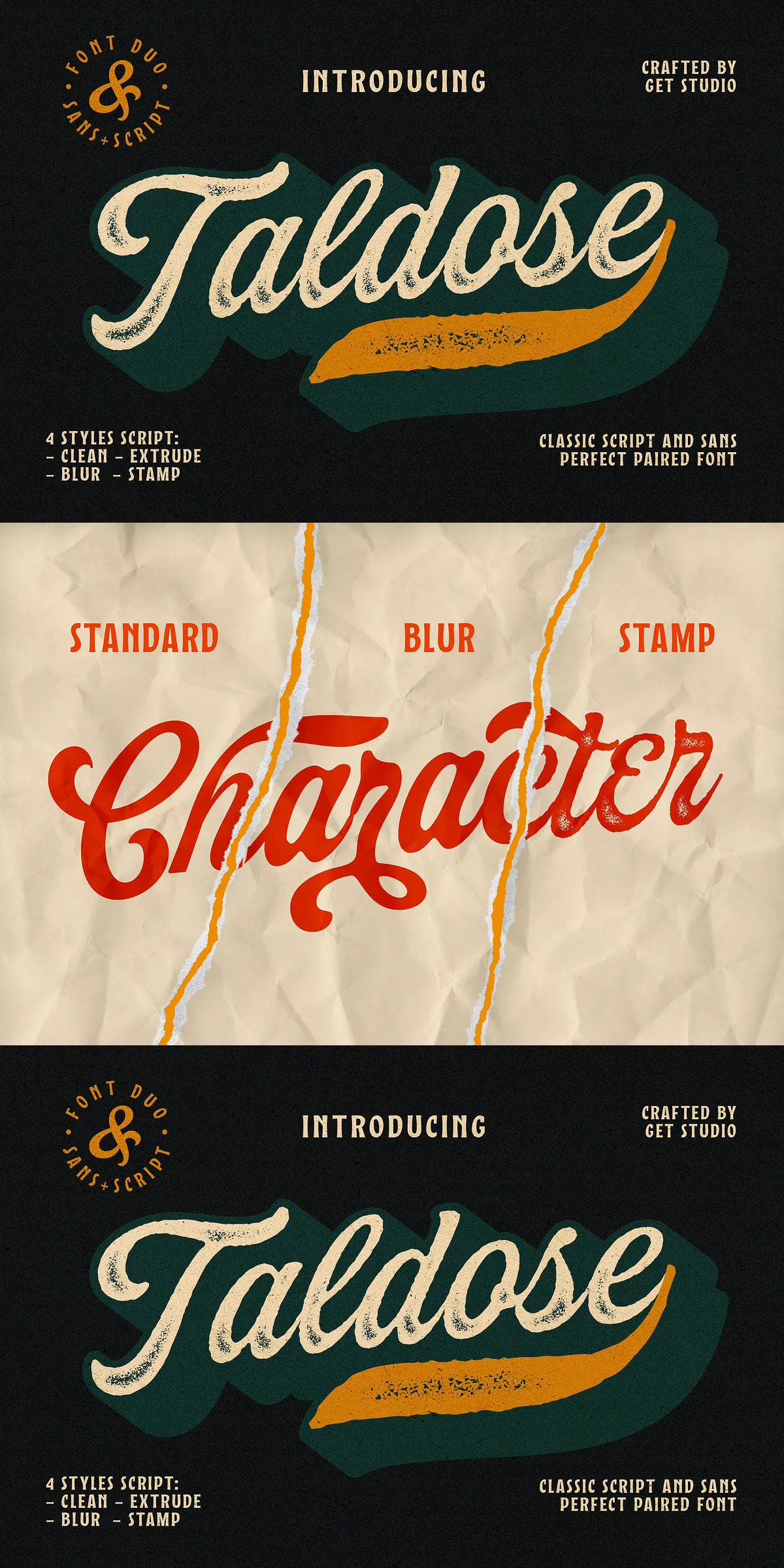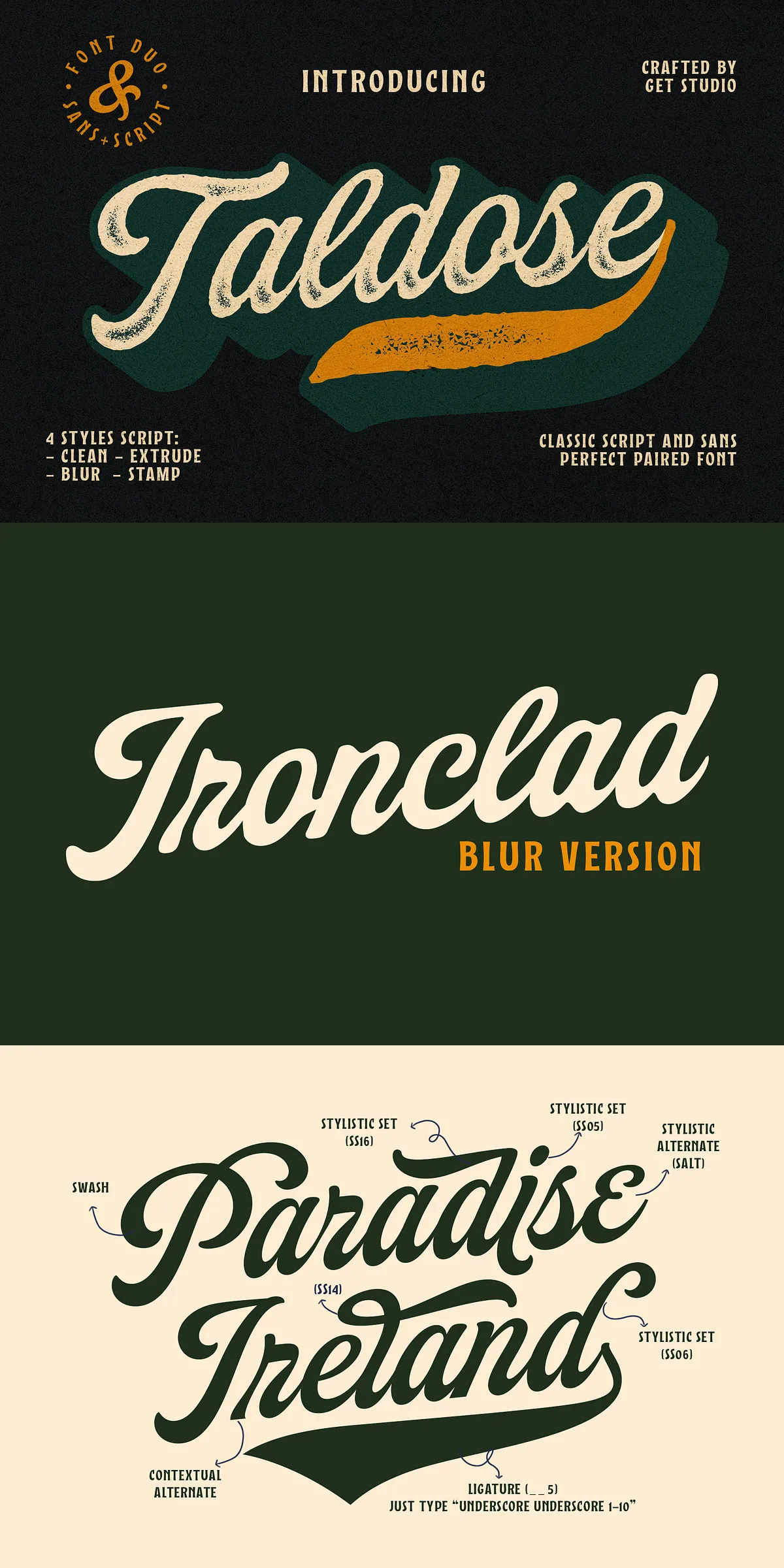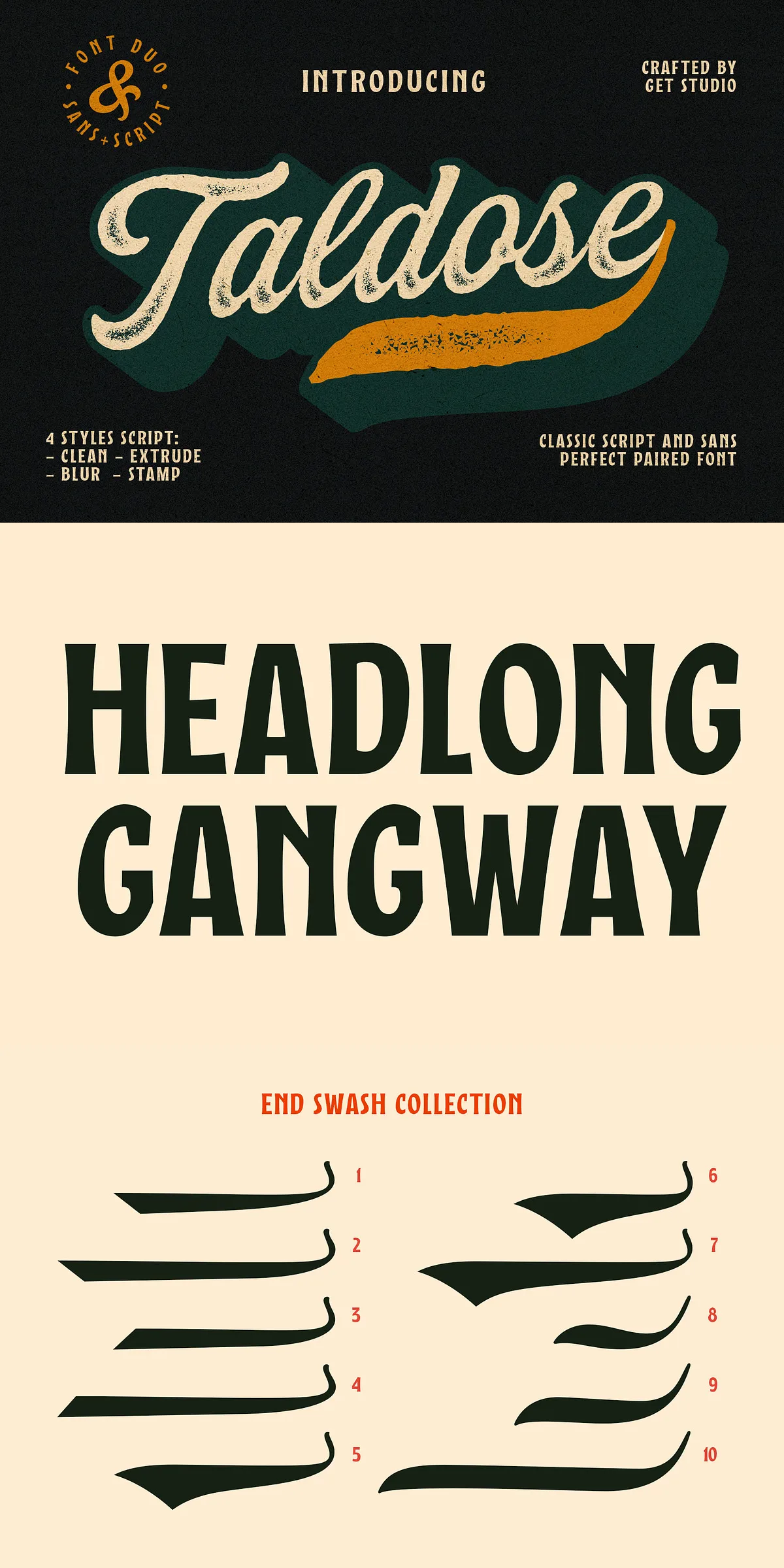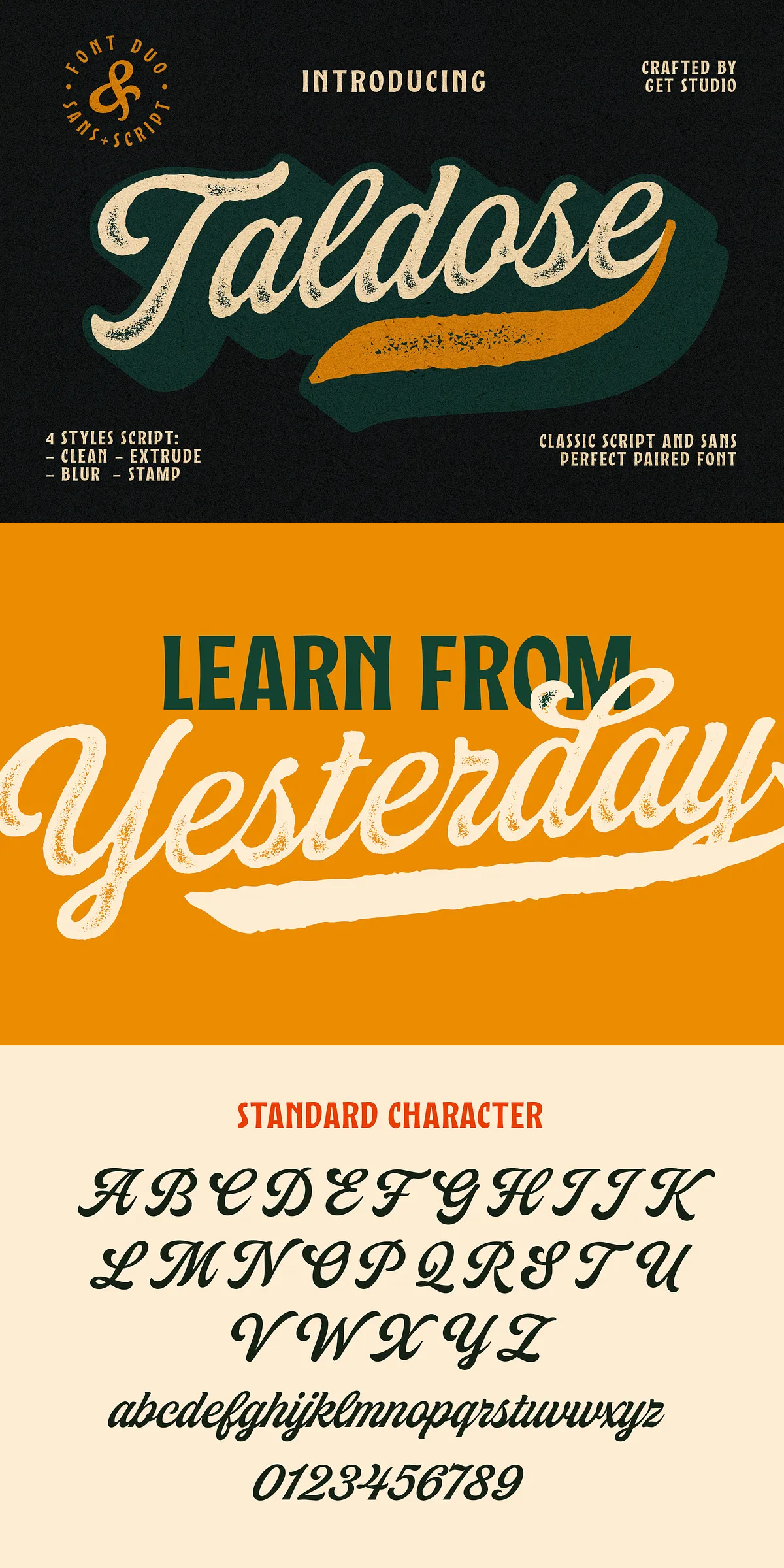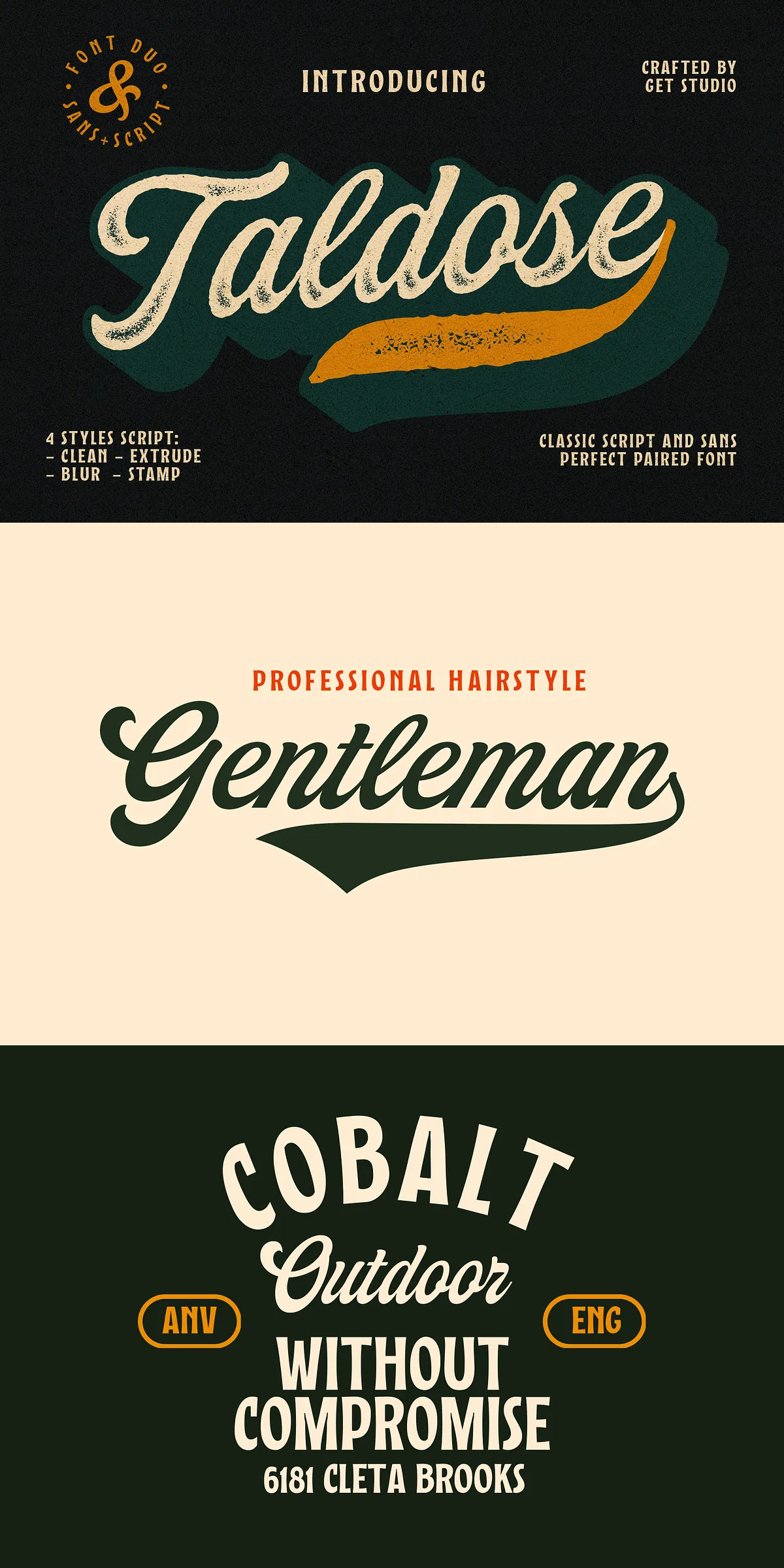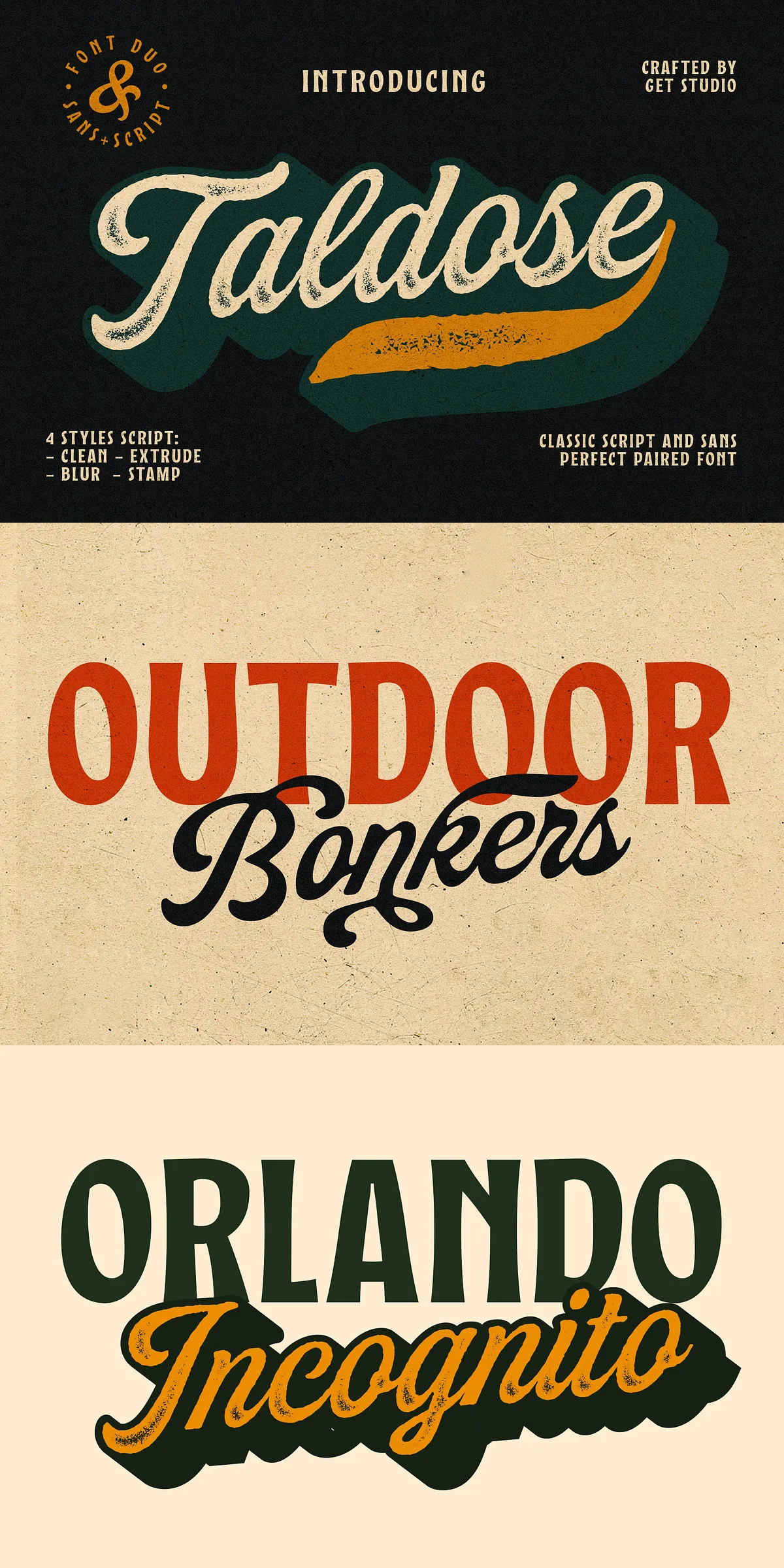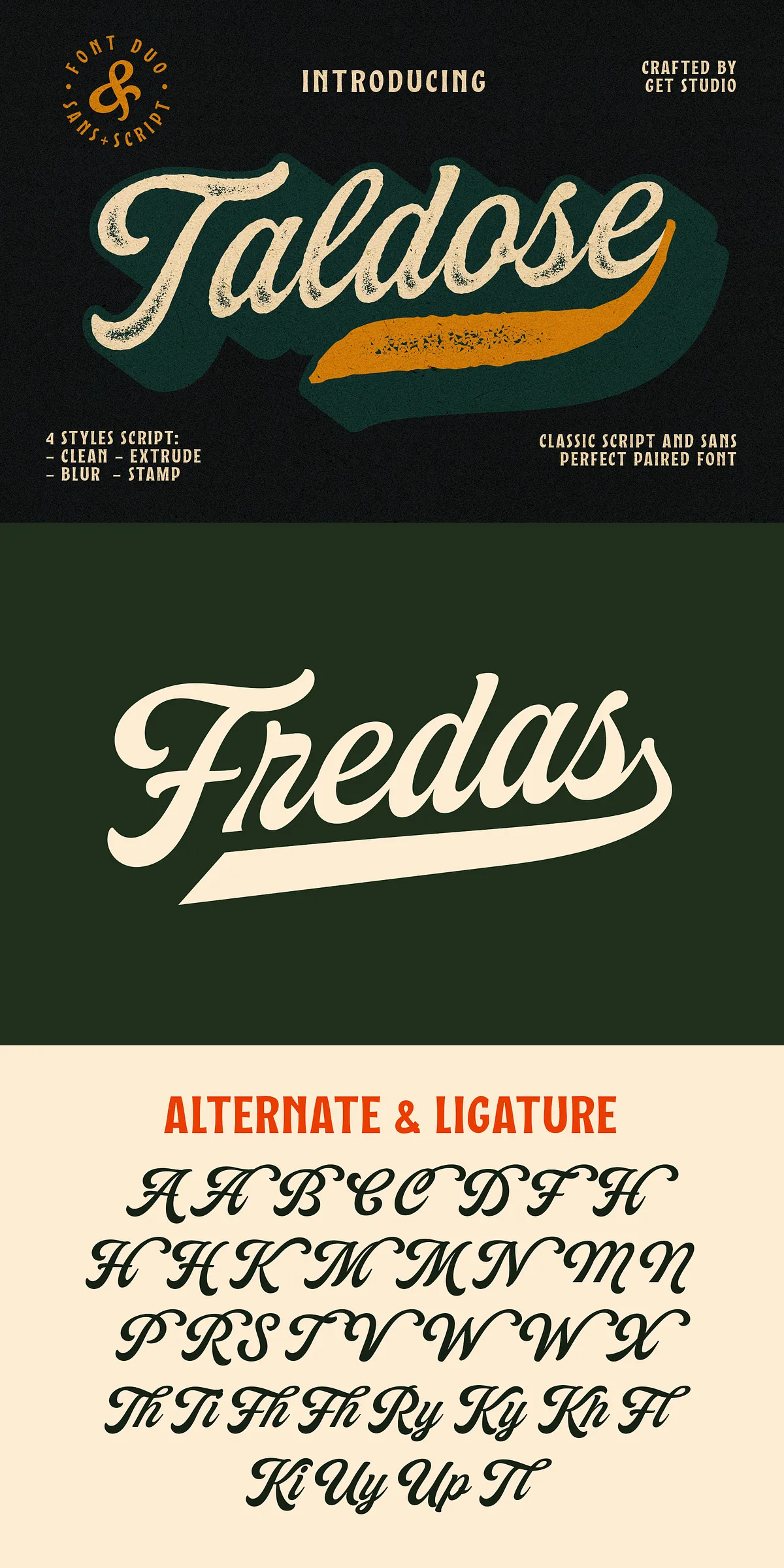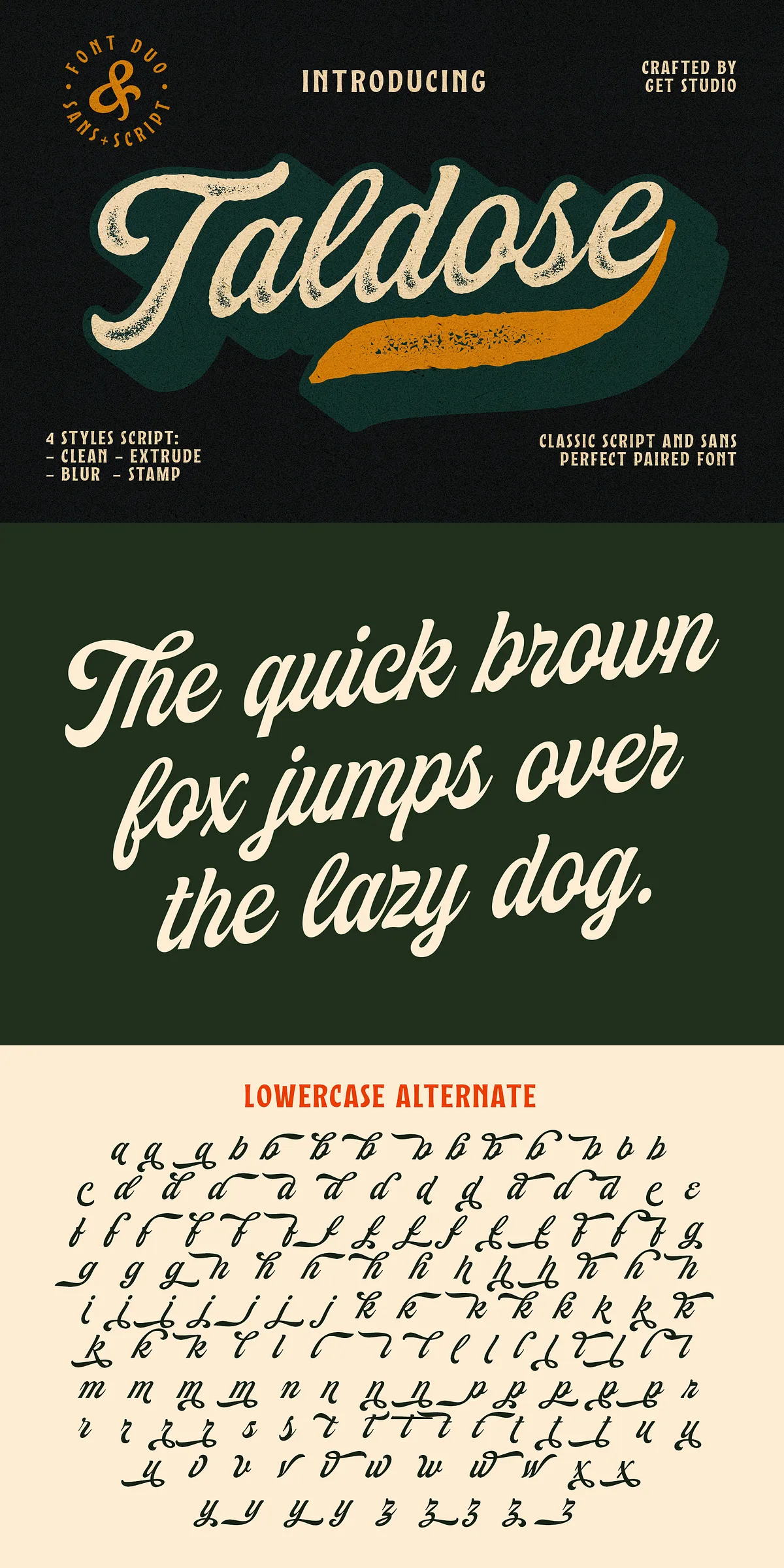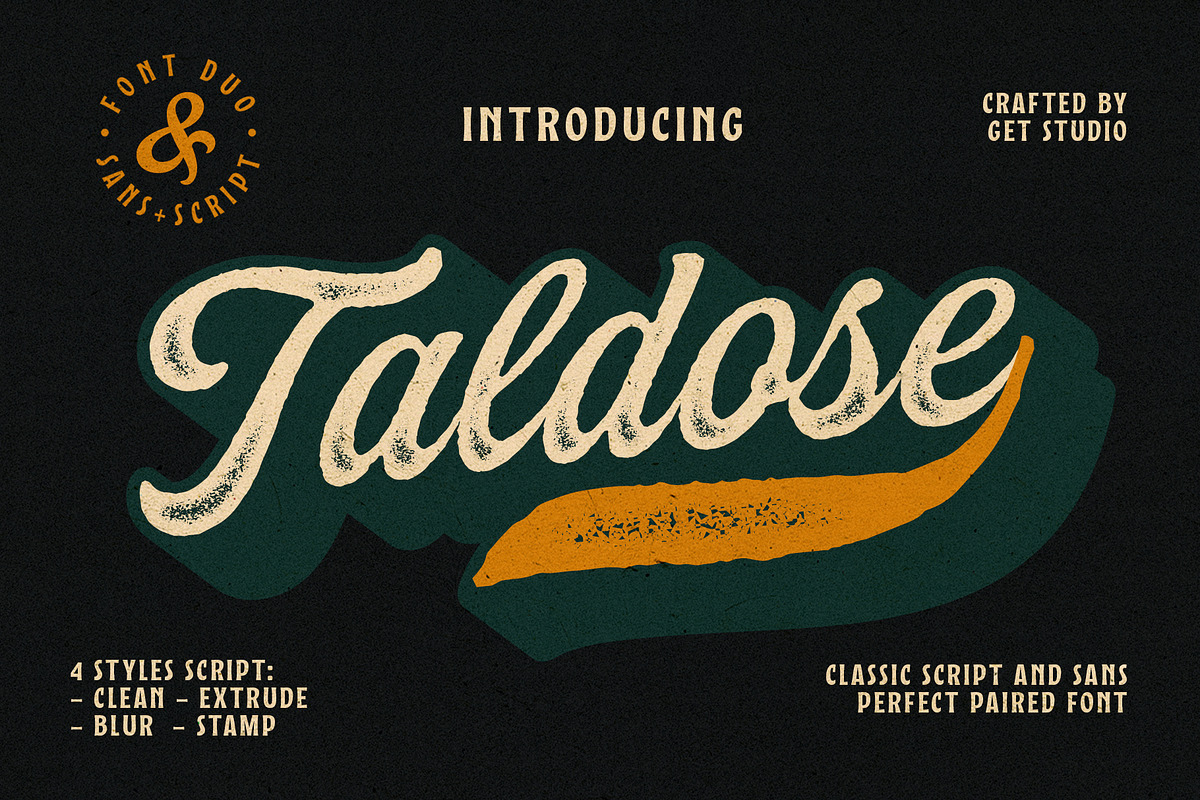
Unleash your creativity with Taldose – a stunning script font that masterfully fuses classic elegance with a bold modern edge. Designed for designers who demand sophistication and impact, Taldose transforms everyday text into a visual experience. With four distinct styles and a powerful companion font, it’s not just a typeface—it’s a complete design language crafted for real-world applications across print, digital, branding, and packaging.
The Power of Four: Taldose’s Diverse Style Range
Each style of Taldose is engineered to serve a unique design purpose, giving you unprecedented control over tone, mood, and visual hierarchy:
- Taldose Clean – Delivers smooth, polished curves and balanced spacing. Ideal for sleek, professional projects like luxury branding, editorial layouts, and minimalist web design where clarity and refinement are key.
- Taldose Blur – Adds a soft, textured depth with gentle blurring effects. Perfect for vintage-inspired posters, artistic publications, and designs that evoke a dreamy, handcrafted atmosphere.
- Taldose Stamp – Brings tactile authenticity with uneven, stamped-like edges and subtle imperfections. Use it to convey a raw, artisanal feel in packaging, labels, or stationery design.
- Taldose Extrude – Commands attention with bold, dimensional forms. The raised, 3D-like effect makes it ideal for impactful headlines, logo accents, and promotional materials that need to stand out.
With these variations, you’re never limited to a single look. Switch between styles to create contrast, rhythm, and emotional depth in your layouts. Whether you want polished luxury or gritty authenticity, Taldose adapts with purpose and precision.
Enhance Your Design with Brookvale Sans – The Perfect Counterpart
For a balanced, cohesive typographic system, Taldose includes a premium bonus: Brookvale Sans. This clean, geometric sans-serif font provides visual harmony by grounding the fluidity of the script with crisp, structured lines.
Use Brookvale for:
- Headlines that need clarity and strength
- Logo pairings where the script provides flair and the sans-serif adds stability
- Body text or captions that complement the elegance of Taldose
- Modern, minimalist branding where contrast drives impact
Together, Taldose and Brookvale form a dynamic duo—elegant yet flexible, expressive yet professional. Their seamless pairing elevates your design from good to unforgettable.
Designed for Impact: Where Taldose Shines
From high-end fashion branding to indie music posters, Taldose empowers creators to deliver memorable visual stories. Use it to:
- Build powerful logos and brand identities – Make your brand name a statement of quality and personality.
- Design premium packaging and product labels – Add a touch of artisanal sophistication that invites the hand to touch and the eye to linger.
- Produce editorial layouts and magazine spreads – Let the script lead the reader through a narrative with grace and movement.
- Create event invitations, business cards, and stationery – Offer a personal, bespoke feel that stands out in a digital world.
- Develop digital content for websites, emails, and social media – Stand out in feeds with expressive, hand-lettered headlines.
Global Reach: Full Multilingual Support Built In
Taldose isn’t designed for just one language—it’s built for the world. With comprehensive multilingual support for English, French, Italian, Spanish, Portuguese, German, Swedish, Norwegian, Danish, Dutch, Finnish, Indonesian, Malay, Czech, Hungarian, Polish, and many more, your message can travel far—without losing its style.
Whether you’re creating content for a global audience or expanding into new markets, Taldose ensures consistency, professionalism, and cultural relevance in every character.